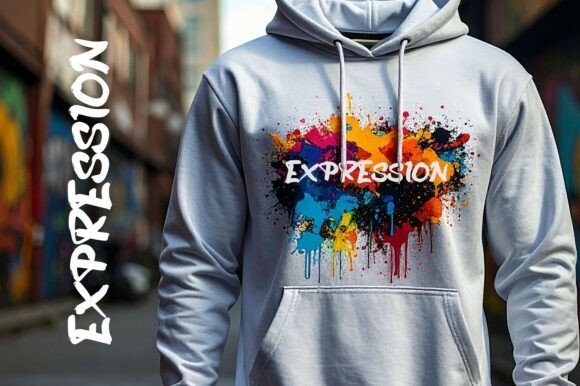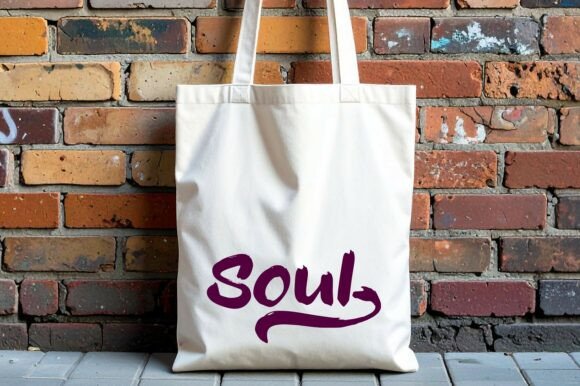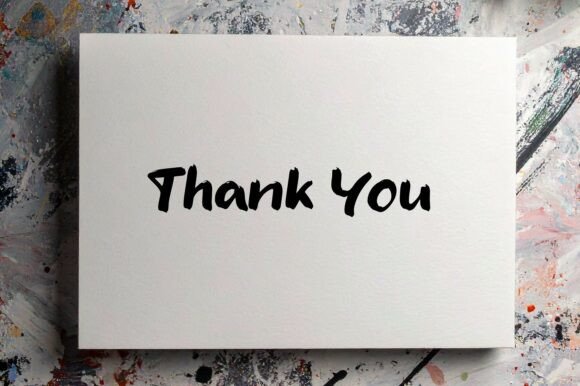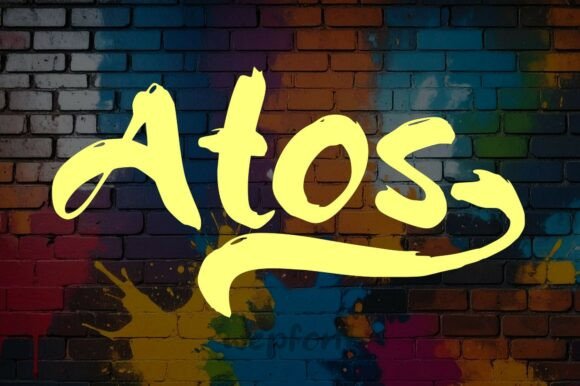
Discover the Vibrant World of Atos Font: Unleashing Creative Energy in Design
In the realm of typography, few fonts capture the essence of urban creativity and rebellious spirit as effectively as the Atos font. This vibrant, energetic, and urban-inspired script font is not just a typeface; it’s an expression of artistic freedom and boldness. Atos radiates a playful and artistic vibe, making it an ideal choice for designers and crafters looking to infuse their projects with a raw, creative energy.
The Unique Characteristics of Atos Font
What sets Atos apart from other fonts is its bold, fluid strokes combined with a distinct, hand-painted brush aesthetic. Each letter is crafted with a dynamic flow, often featuring slight variations in baseline and pressure. This technique gives Atos an authentic graffiti or street art feel, reminiscent of urban landscapes and artistic rebellion. The font’s expressive curves and confident lines make it stand out, ensuring that any project it is used in will have a strong, creative thematic connection.
Comprehensive Typography for Versatility
Atos font is not just about aesthetics; it’s also about functionality. It includes a comprehensive set of uppercase and lowercase characters, numerals, and essential punctuation glyphs. This extensive range ensures that designers have everything they need to create cohesive and impactful text, from bold headlines to detailed artistic expressions. The design maintains its distinct, lively style across all characters, ensuring consistency and high visibility in any application.
Perfect for Impactful Headlines and Artistic Branding
The bold and irregular form of Atos ensures excellent visibility, making it perfect for impactful headlines and artistic branding. Its unique style captures attention and communicates a message of creativity and boldness. For brands looking to express an edgy, urban, or artistic identity, Atos provides a typographic solution that is both visually striking and thematically aligned.
Applications of Atos Font
The applications of Atos font are vast and varied, catering to a wide range of design needs:
- Graphic Design: Ideal for posters, flyers, and brochures that require a bold, eye-catching headline.
- Digital Art: Perfect for digital illustrations and artwork that seek to convey a sense of urban grit and creativity.
- Branding and Logo Design: Excellent for brands aiming to project an image of artistic boldness and urban edge.
- Social Media Graphics: Great for social media posts, stories, and banners that need to stand out with a vibrant, dynamic look.
Tips for Using Atos Font Effectively
To make the most of Atos font, consider the following tips:
- Experiment with Sizes: Play with different sizes to emphasize certain words or phrases, leveraging the font’s bold nature for maximum impact.
- Color Choices: Choose colors that complement the urban, artistic vibe of Atos. Brights, bold colors, and gradients can enhance its dynamic feel.
- Mix and Match: Combine Atos with simpler fonts for a contrasting look, using it for headlines and a more straightforward font for body text.
Atos font is a powerful tool for designers and crafters looking to inject their projects with a dose of urban creativity and rebellious spirit. Its unique blend of bold, fluid strokes and hand-painted aesthetics, combined with a comprehensive character set and compatibility with major design tools, makes it an excellent choice for a wide range of applications. Whether you’re working on a branding project, creating digital art, or designing marketing materials, Atos is sure to bring a fresh, energetic vibe to your work.